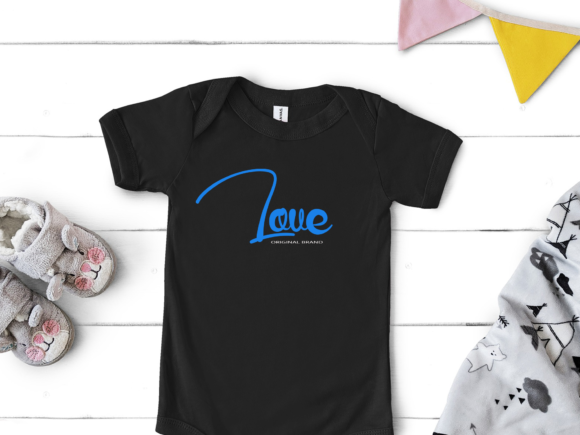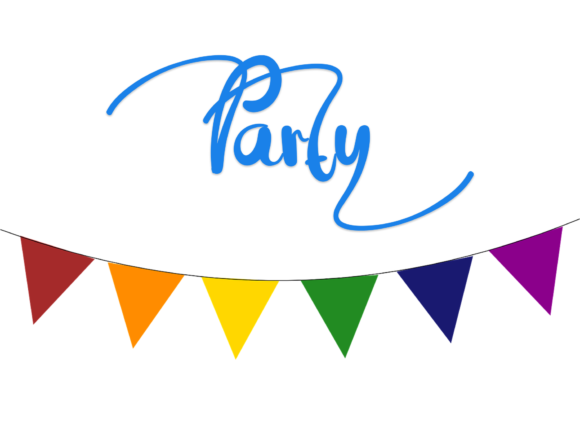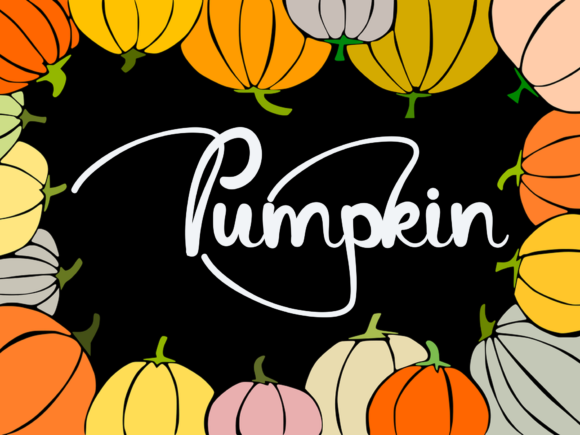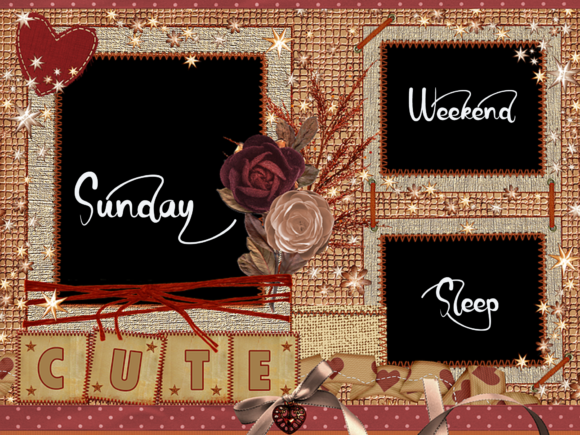
Sunday Morning Font
About Sunday Morning Font
Sunday Monday is a timeless and unique script font. This font can be added to formal or casual designs, such as party invitations, wedding invitations or even business cards. The only limit is your imagination.